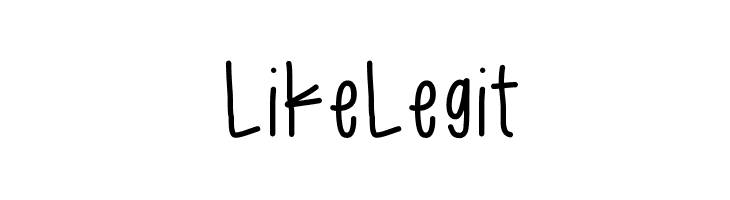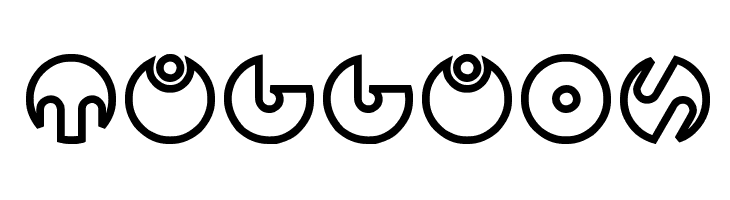
A modern, monospaced font with clean lines and uniform spacing.
A bold, monospaced font with a modern, geometric style.
A bold, monospaced font with a modern, geometric design.
A modern, oblique monospaced font with a sleek, dynamic style.
A bold, monospaced font with geometric shapes and consistent character width.
A modern, geometric monospaced font with a clean and precise design.
A fluid, elegant script font with an italic, handwritten style.
A playful, handwritten font with irregular strokes and a casual style.
A playful, bold font with rounded edges and a hand-drawn feel.
A bold, geometric font with a digital, futuristic style.